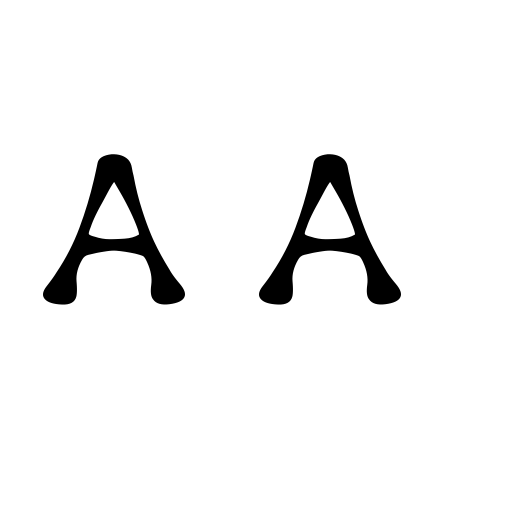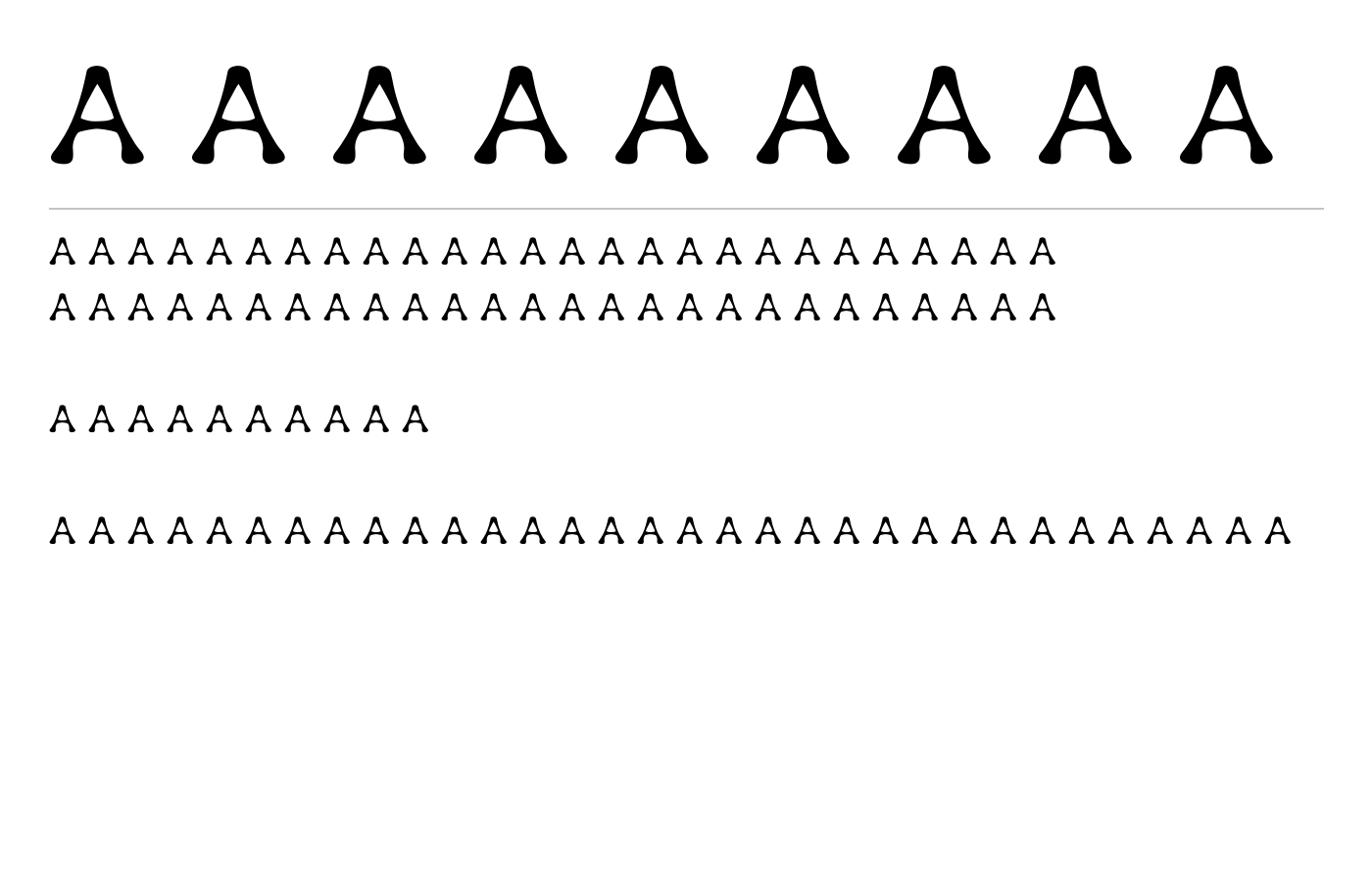
BonesFont is a quirky and playful display typeface with unique, irregular shapes that resemble hand-carved or organic forms. Its bold, uneven strokes and slightly condensed structure give it a distinctive, informal character perfect for creative designs, Halloween themes, or fun branding that wants to stand out with a friendly, unconventional vibe. This font works best in headlines, posters, or logos where personality and visual impact are key.
BonesFont